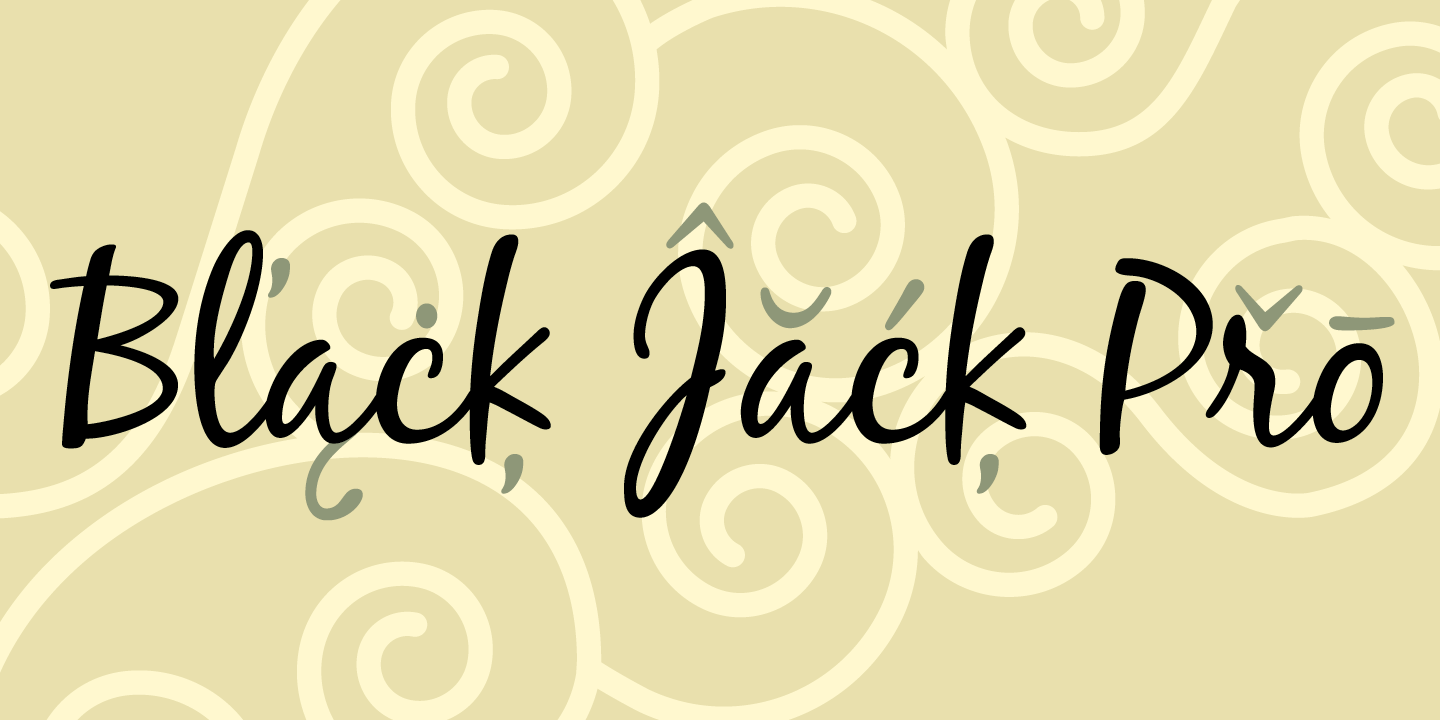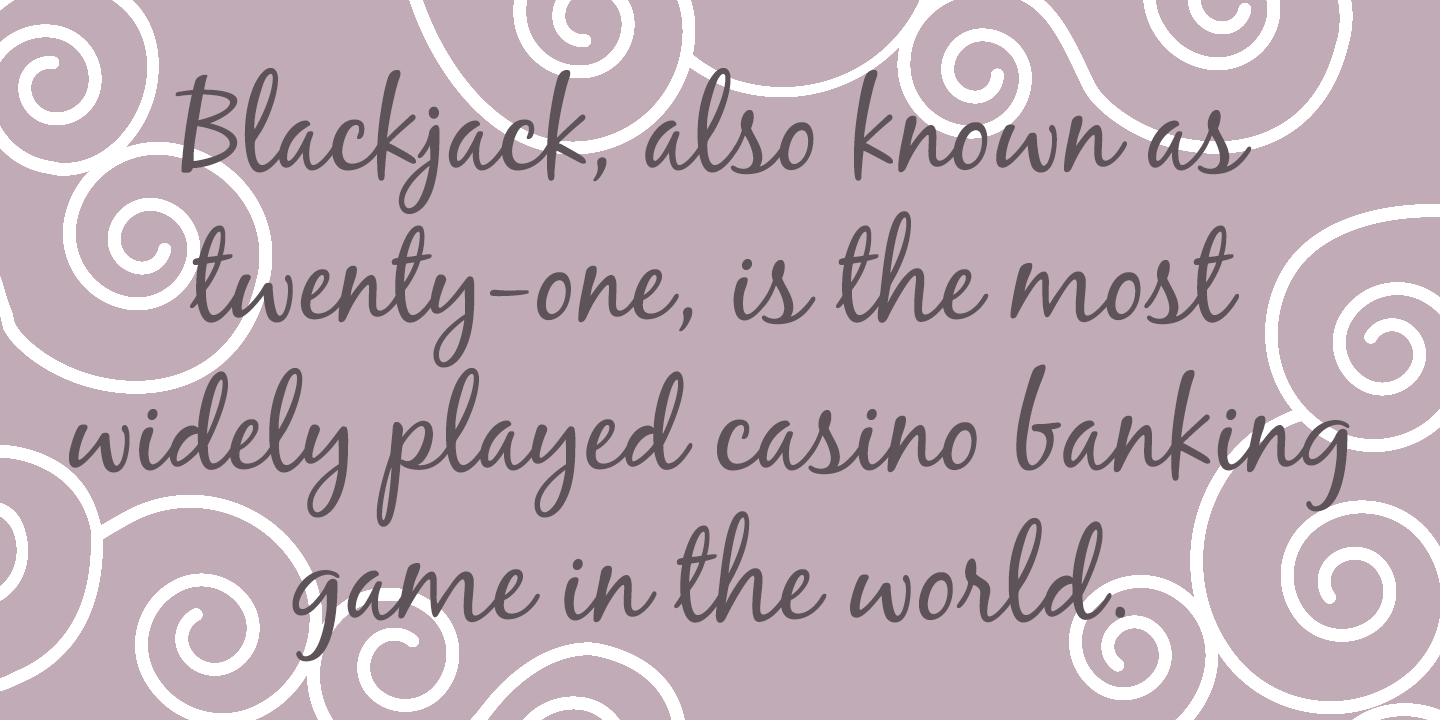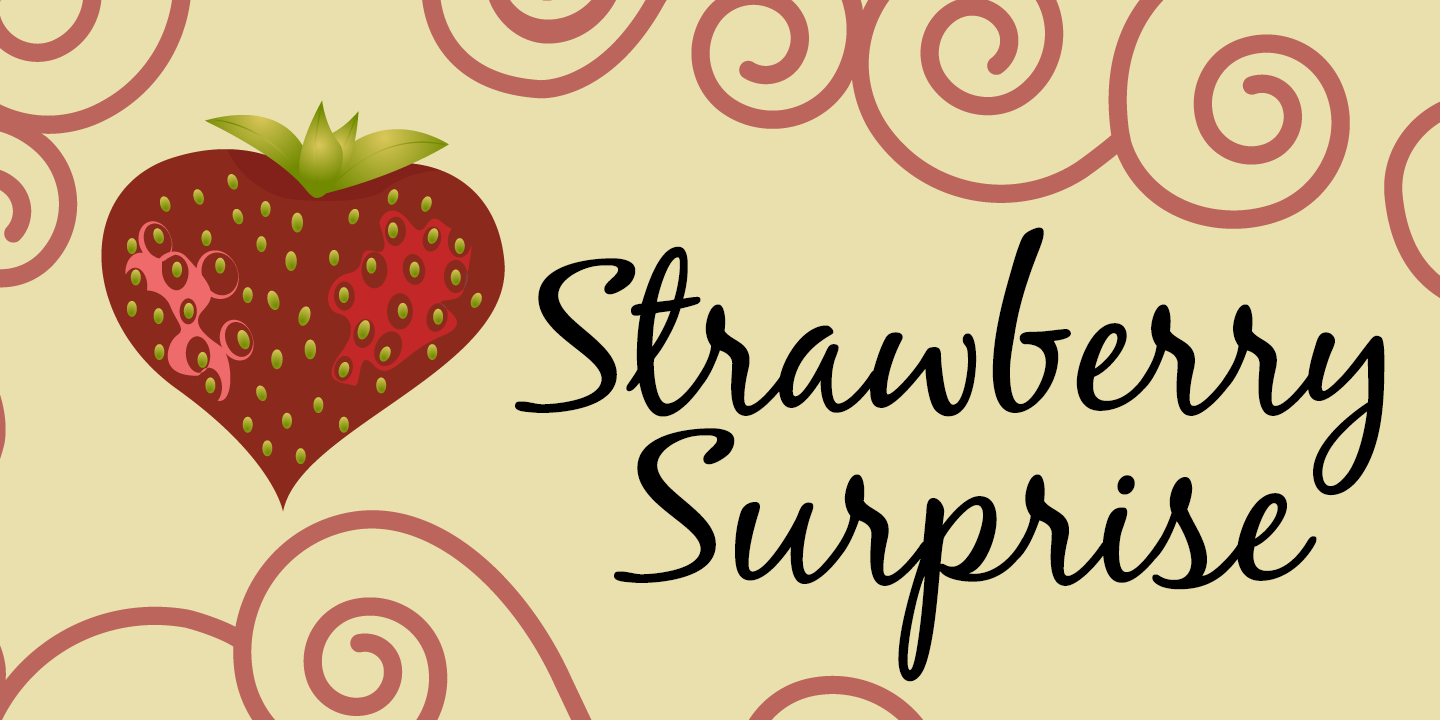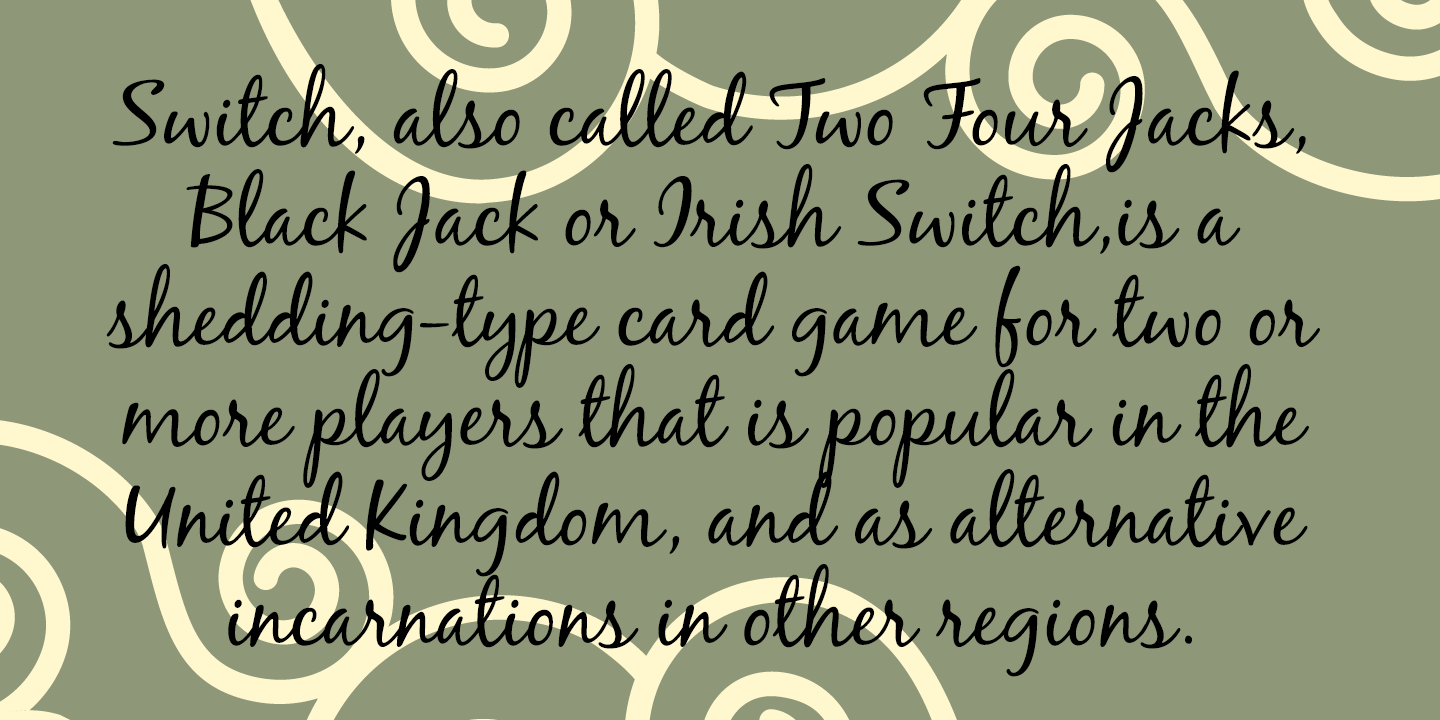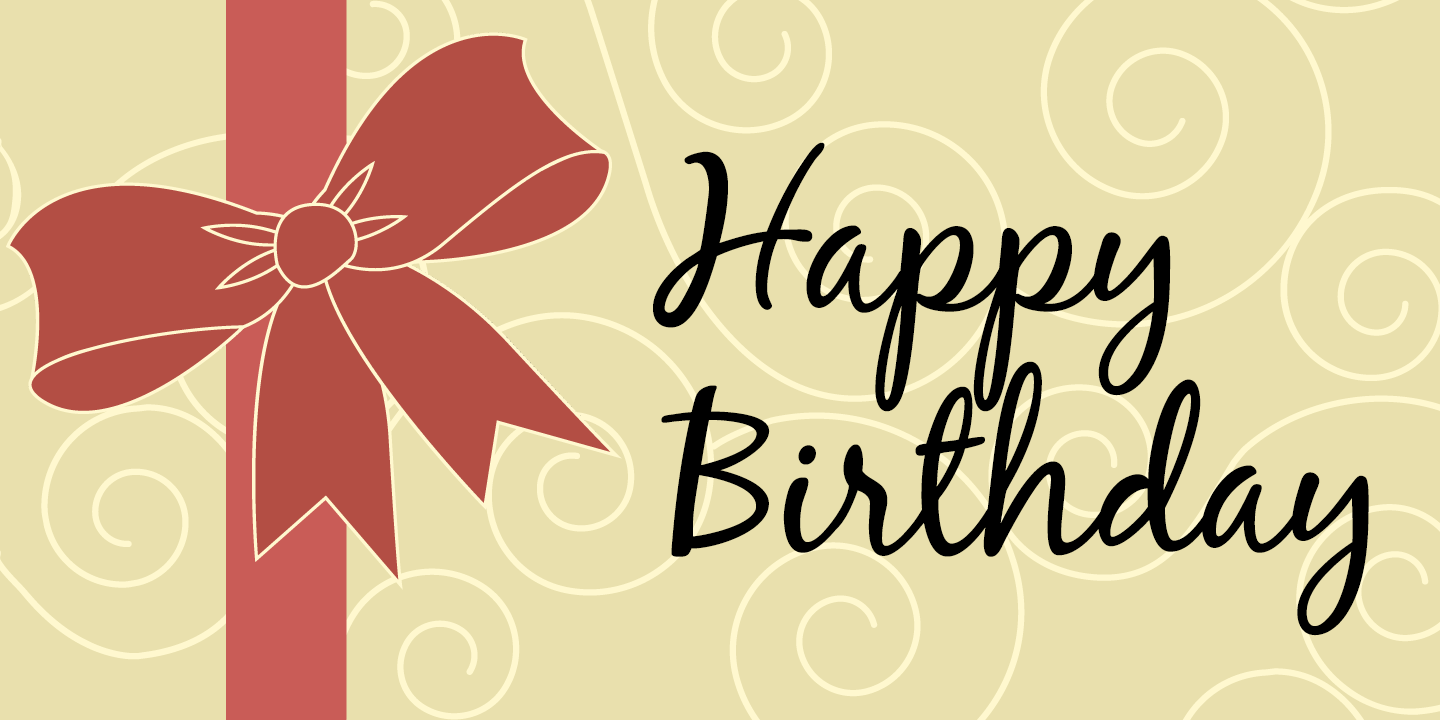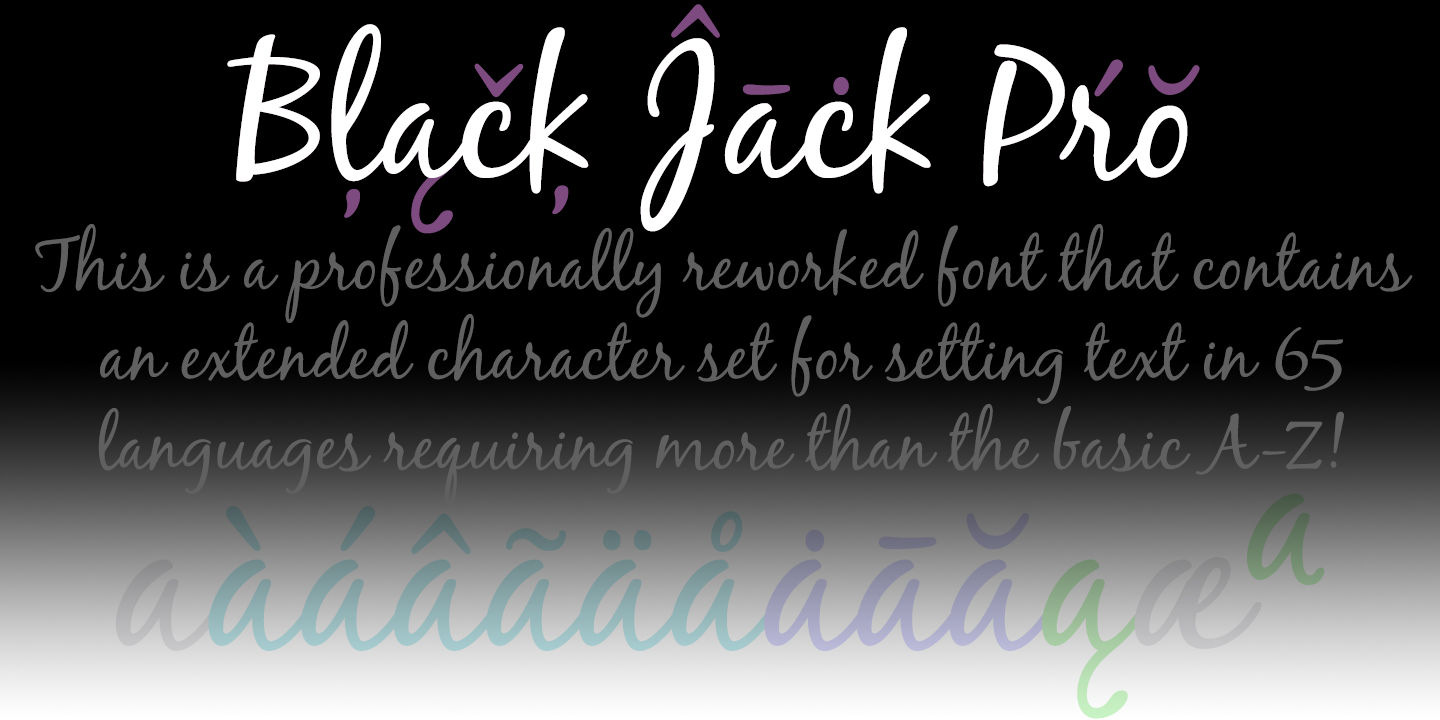
The talented Ronna Penner has created many beautiful script fonts, and Black Jack’s quality was very good so only a few spacing issues had to be addressed. I've added some kerning pairs, and then added all the glyphs needed for the CheapProFonts language coverage. This font was an absolute joy to rework, and with its extended character set I hope it now finds many more users! ALL fonts from CheapProFonts have very extensive language support: They contain some unusual diacritic letters (some of which are contained in the Latin Extended-B Unicode block) supporting: Cornish, Filipino (Tagalog), Guarani, Luxembourgian, Malagasy, Romanian, Ulithian and Welsh. They also contain all glyphs in the Latin Extended-A Unicode block (which among others cover the Central European and Baltic areas) supporting: Afrikaans, Belarusian (Lacinka), Bosnian, Catalan, Chichewa, Croatian, Czech, Dutch, Esperanto, Greenlandic, Hungarian, Kashubian, Kurdish (Kurmanji), Latvian, Lithuanian, Maltese, Maori, Polish, Saami (Inari), Saami (North), Serbian (latin), Slovak(ian), Slovene, Sorbian (Lower), Sorbian (Upper), Turkish and Turkmen. And they of course contain all the usual “western” glyphs supporting: Albanian, Basque, Breton, Chamorro, Danish, Estonian, Faroese, Finnish, French, Frisian, Galican, German, Icelandic, Indonesian, Irish (Gaelic), Italian, Northern Sotho, Norwegian, Occitan, Portuguese, Rhaeto-Romance, Sami (Lule), Sami (South), Scots (Gaelic), Spanish, Swedish, Tswana, Walloon and Yapese. There is no yen currency symbol is this font.